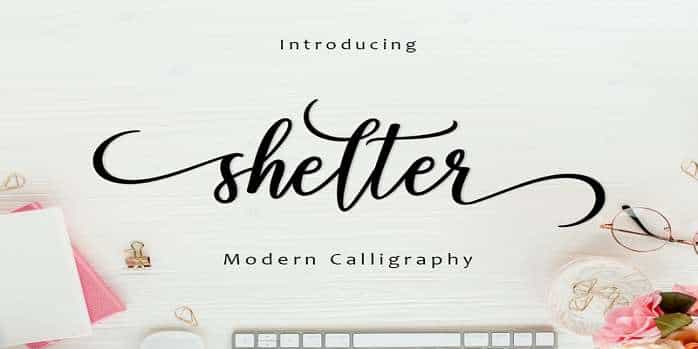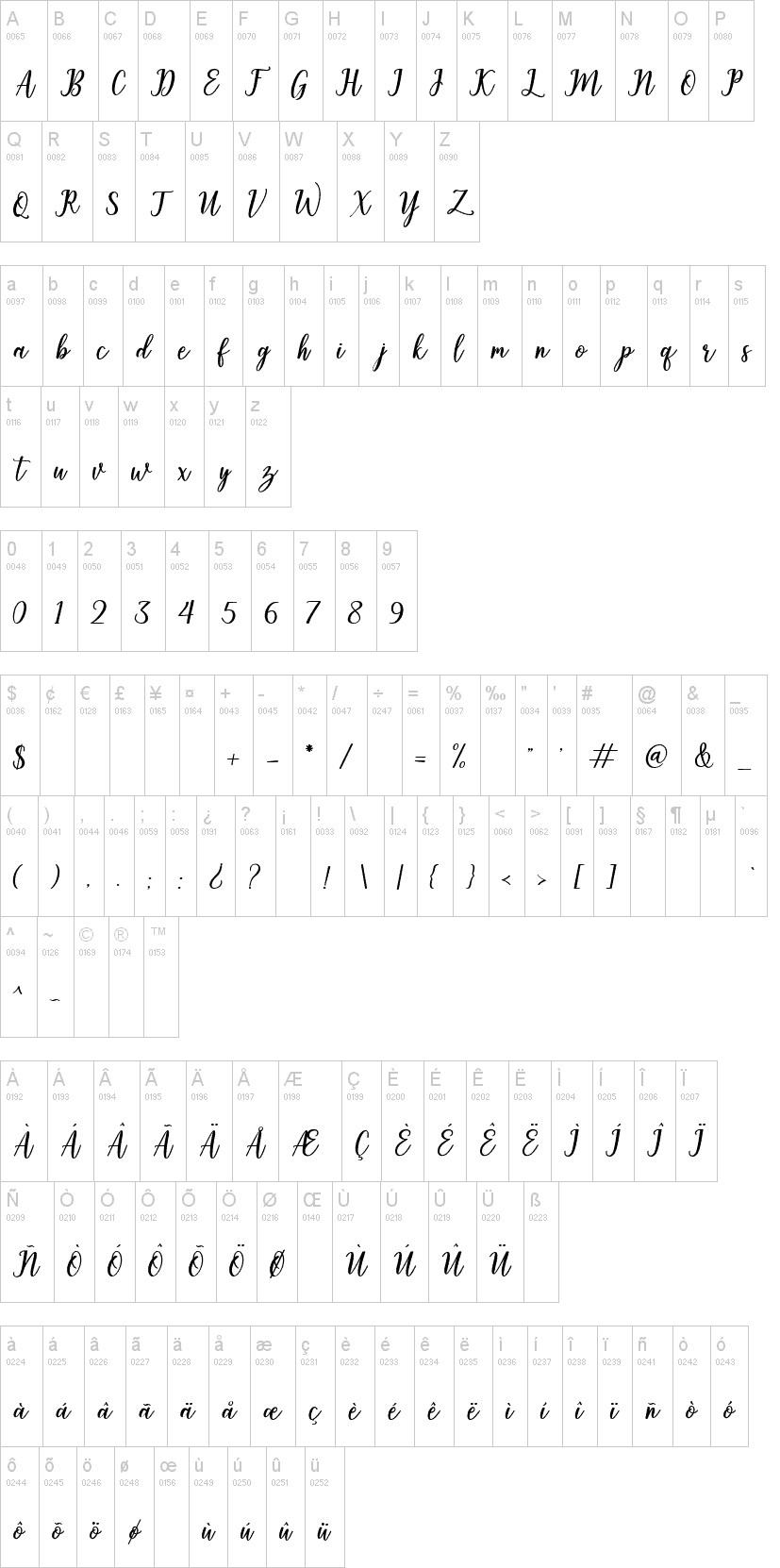
Another font of high quality is the Shelter Calligraphy font which has been created by Amar Lettering and may be downloaded for free for personal use only. The free version comes with all the letters including both capital and small letters and some special characters as well.